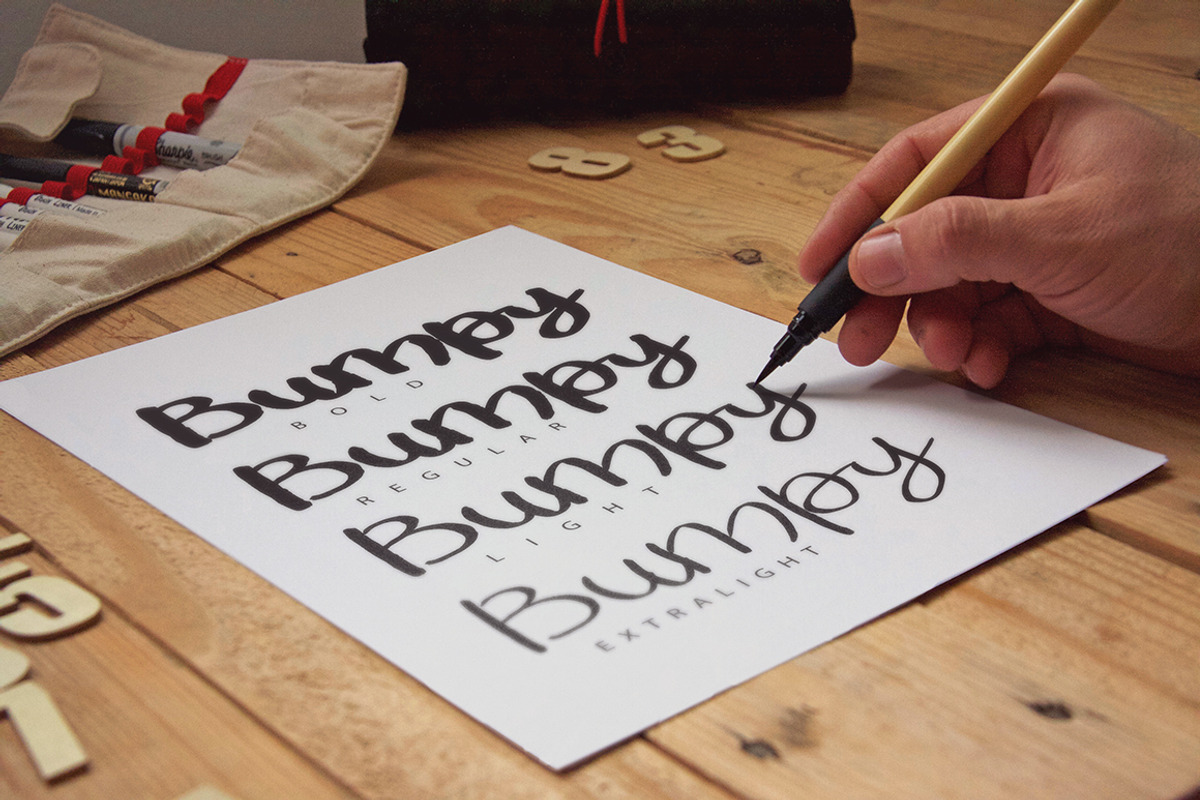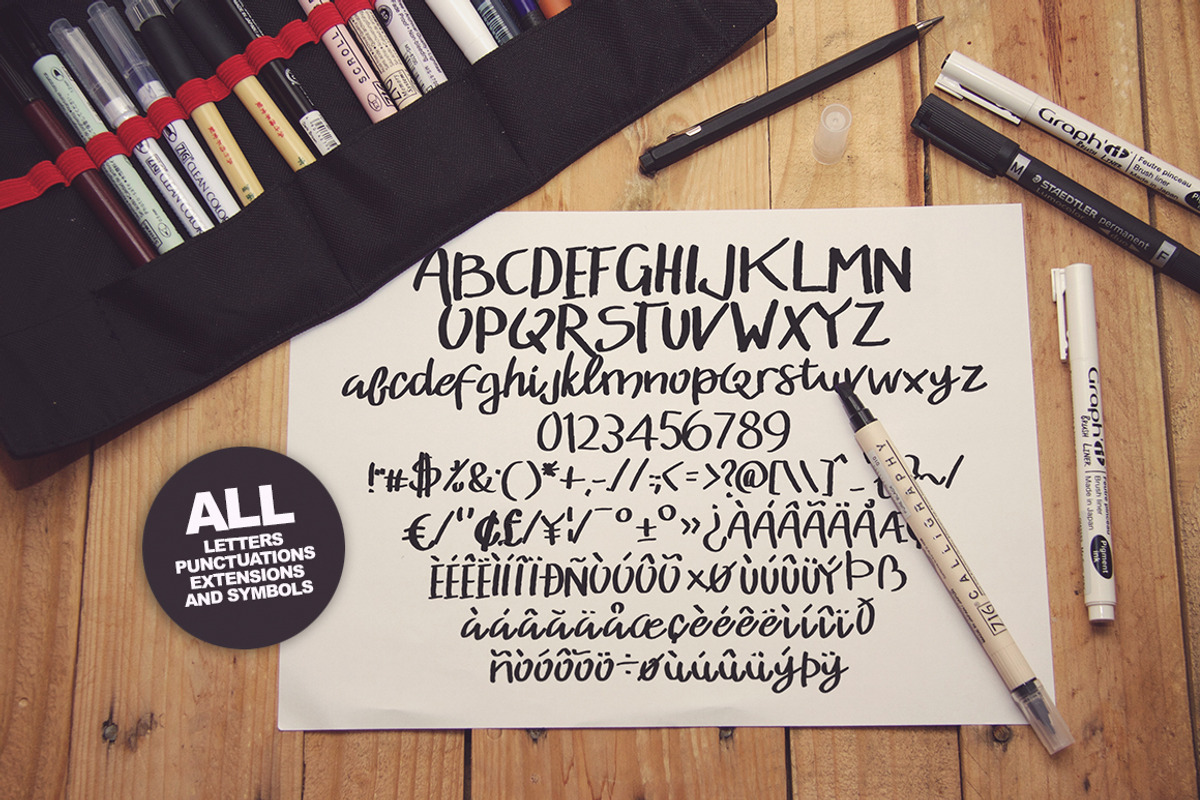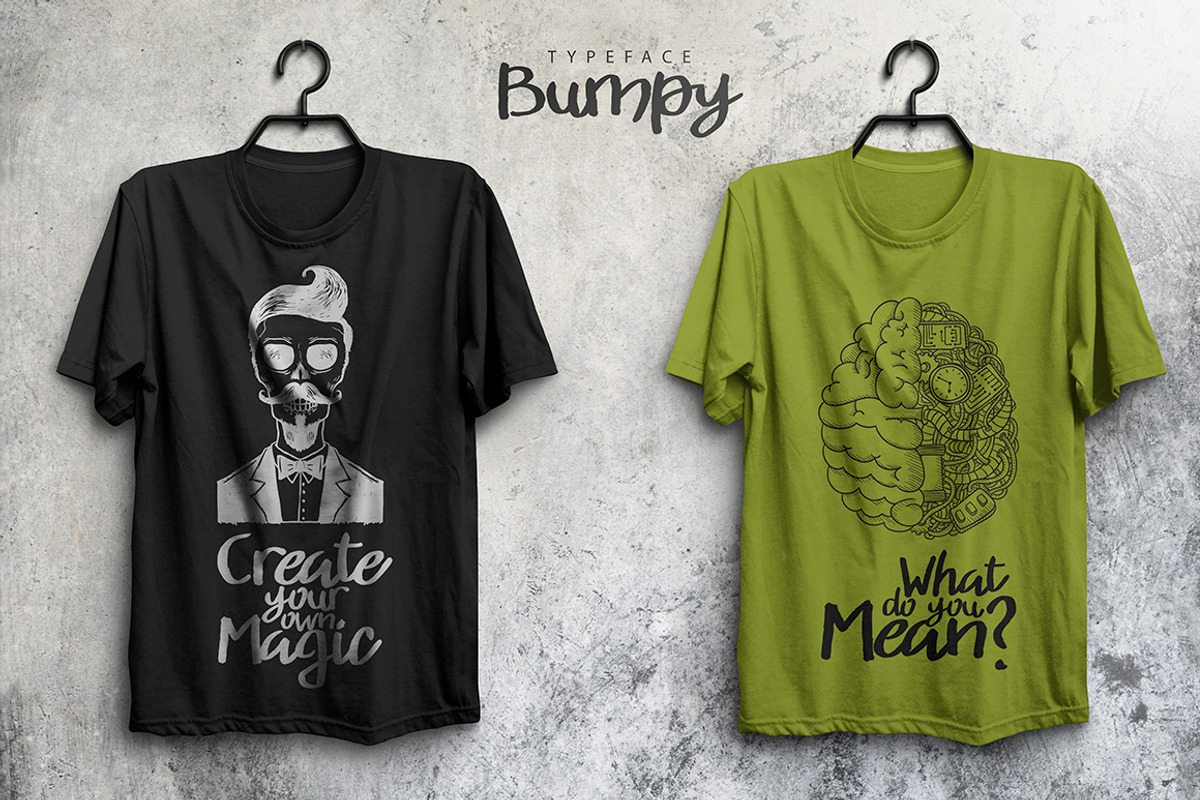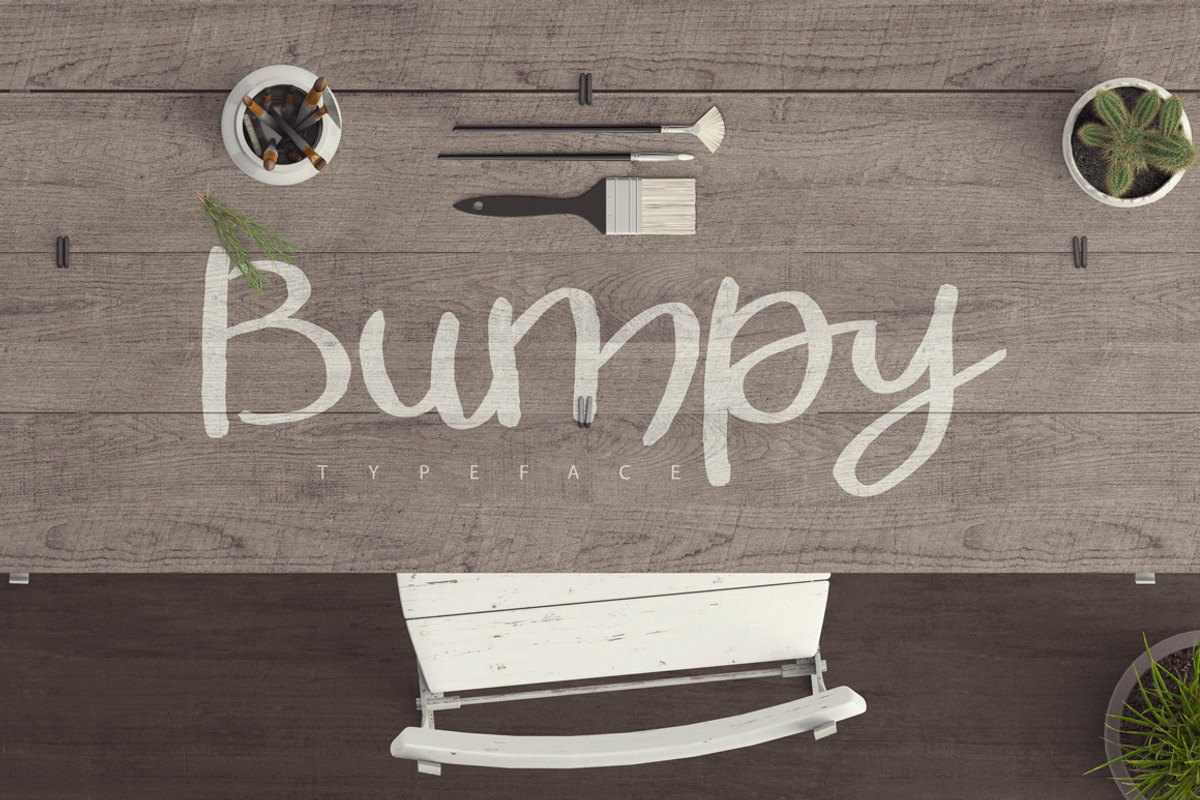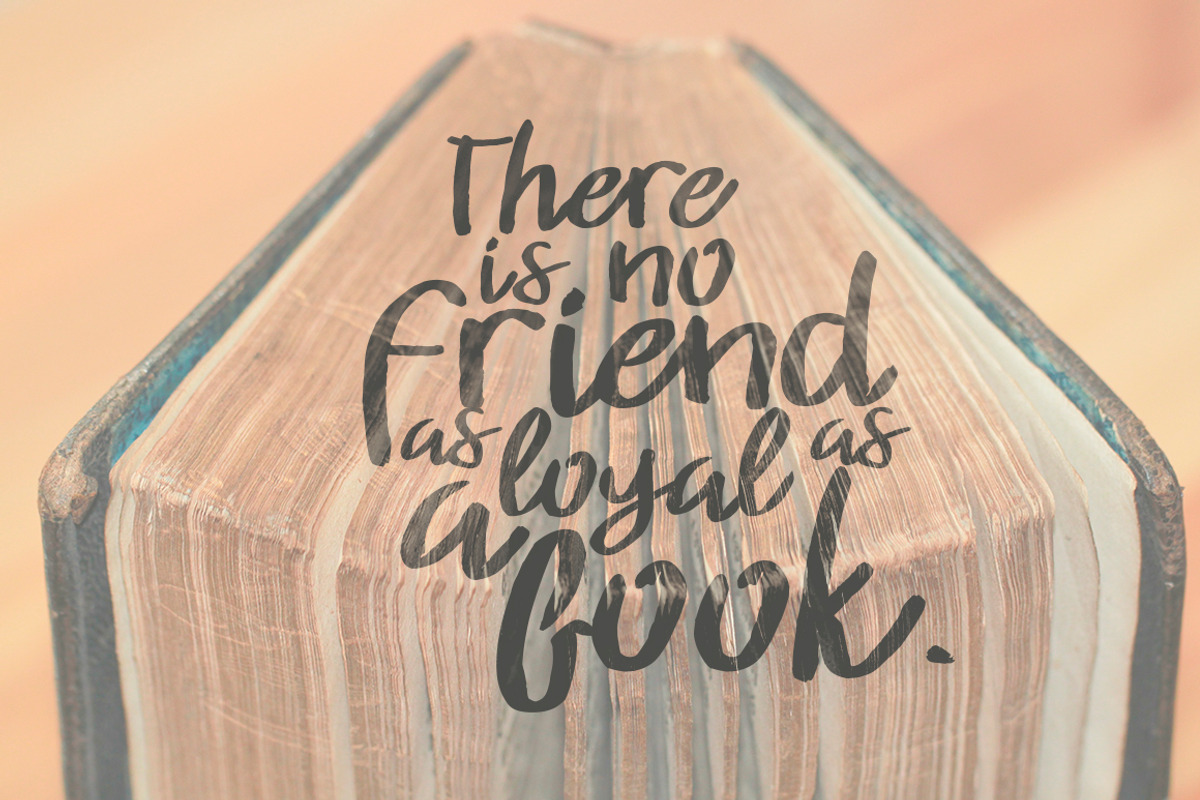
Bumpy Typeface
Bumpy Typeface by SmartDesigns is a font selected for branding, posters, packaging, typography.
- Bumpy is a family handmade font with for versions and all punctuations, extensions, lowercase and uppercase, numbers and webfont.
Why Bumpy Typeface is worth a look
Bumpy Typeface by SmartDesigns fits naturally into Branding, posters, packaging, typography.